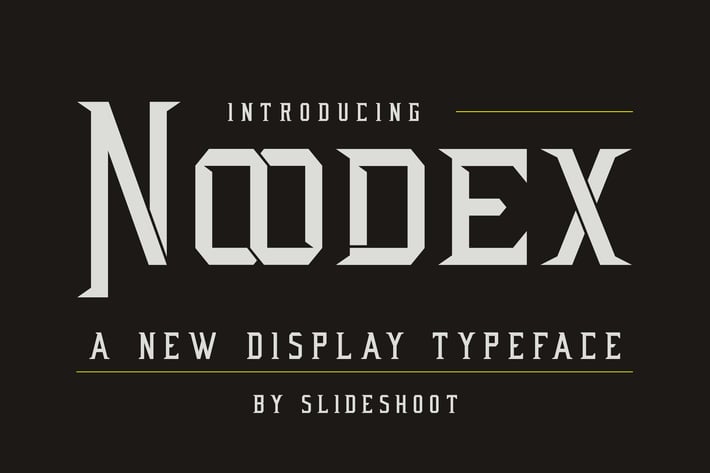
Noodex - Display Serif Font
Noodex is a modern sports font with a variety of styles. Strong and confident, suitable for sports logos, branding, posters, clothing designs, business cards and others. Noodex is a modern sports font with a variety of styles that exude sophistication. Its stylish alternation and binding make this font the perfect partner for any project.